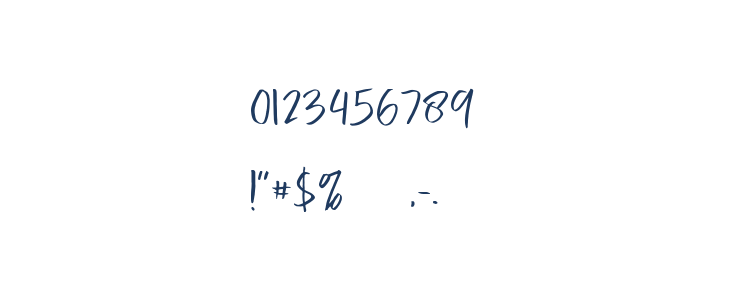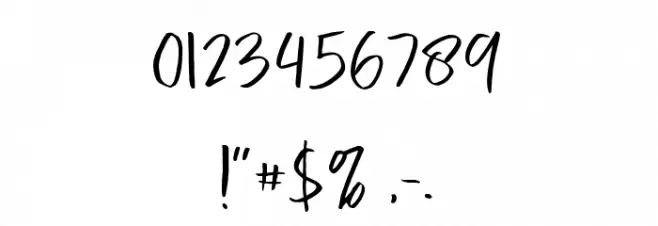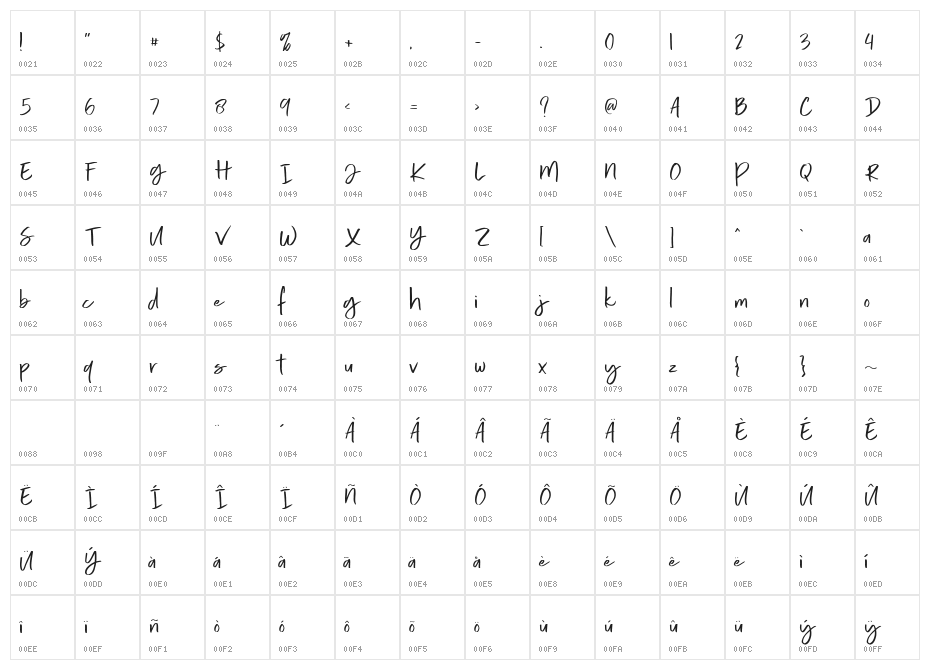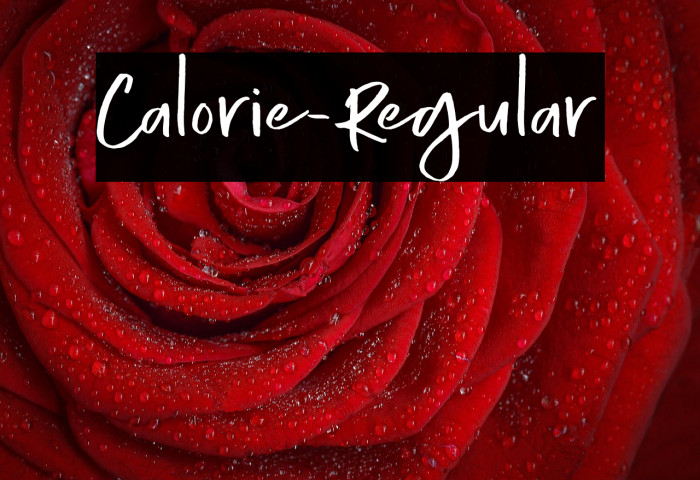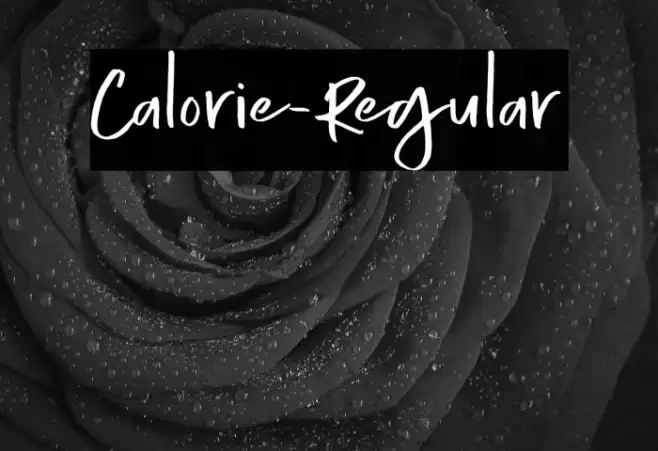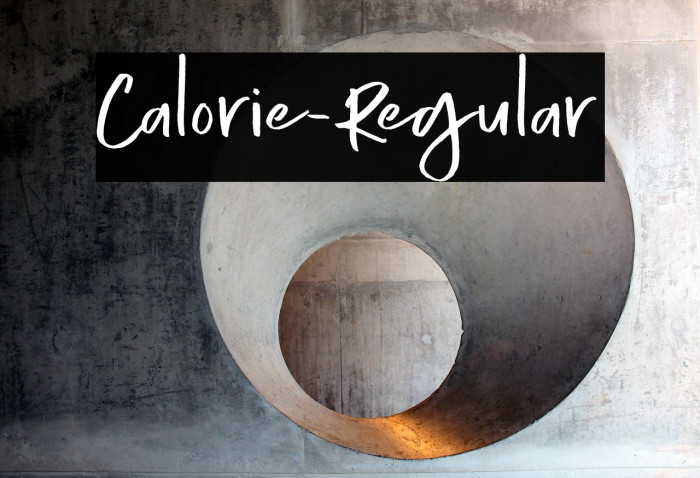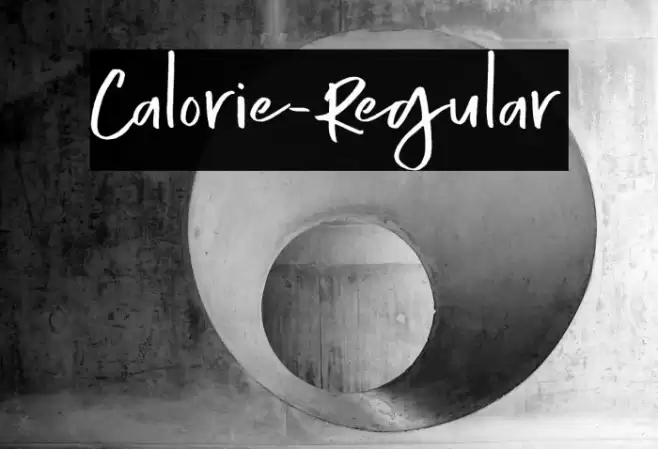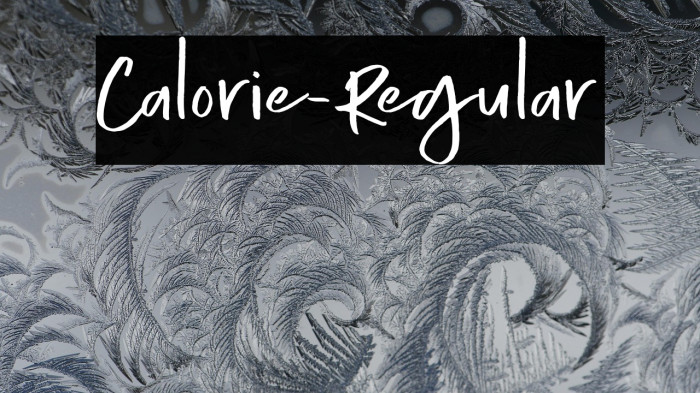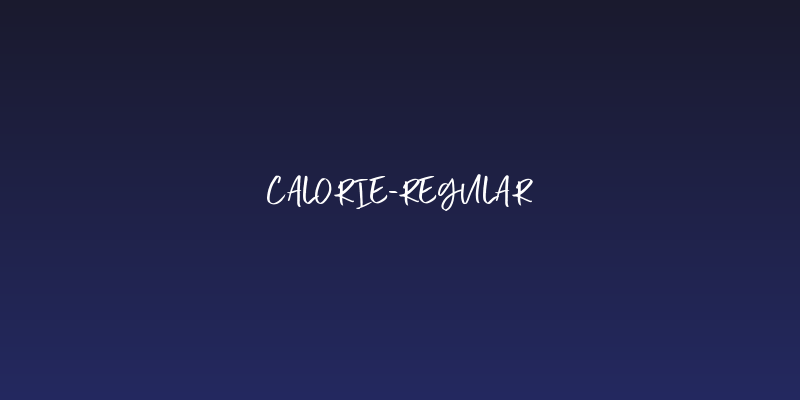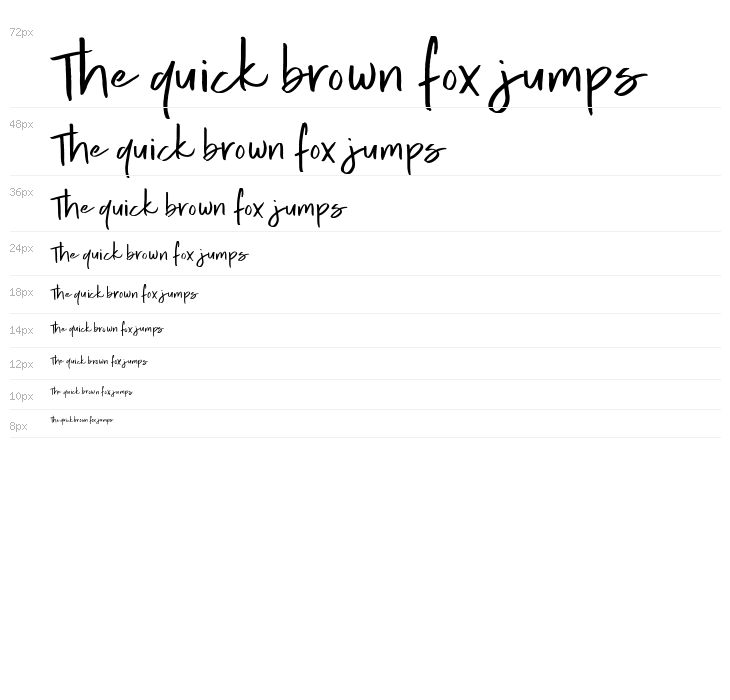
Calorie-Regular Font
Calorie-Regular Description
This font features a playful and energetic handwritten style, characterized by its fluid and dynamic strokes. The letters have a casual, yet refined appearance, with a slight slant that adds to its informal charm. The uppercase letters are bold and expressive, while the lowercase letters maintain a consistent flow, enhancing readability. The numbers and special characters are crafted with the same lively spirit, making them suitable for a variety of creative applications. Overall, this font exudes a sense of spontaneity and creativity, perfect for projects that require a personal touch.